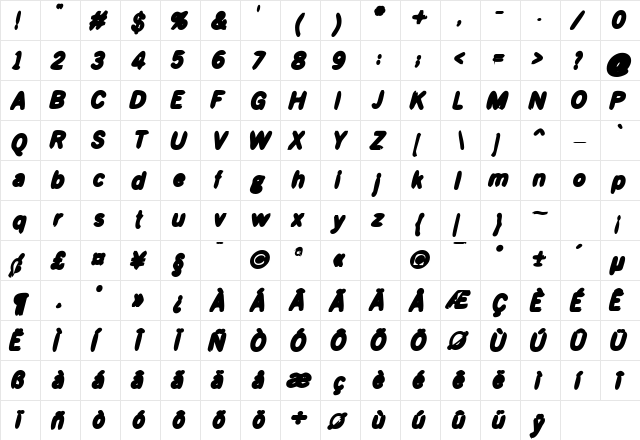
Design Context for Blue Bond Typeface
Blue Bond takes a measured approach to typography — its balanced proportions and neutral character make it a reliable workhorse for both digital and print work. Its italic angle brings a sense of urgency and motion to the letterforms. The heavy weight commands attention and anchors typographic hierarchies.
Pro Tip: Try Blue Bond for annotation and caption copy alongside an upright companion — the contrast in angle creates a dynamic but ordered typographic system.